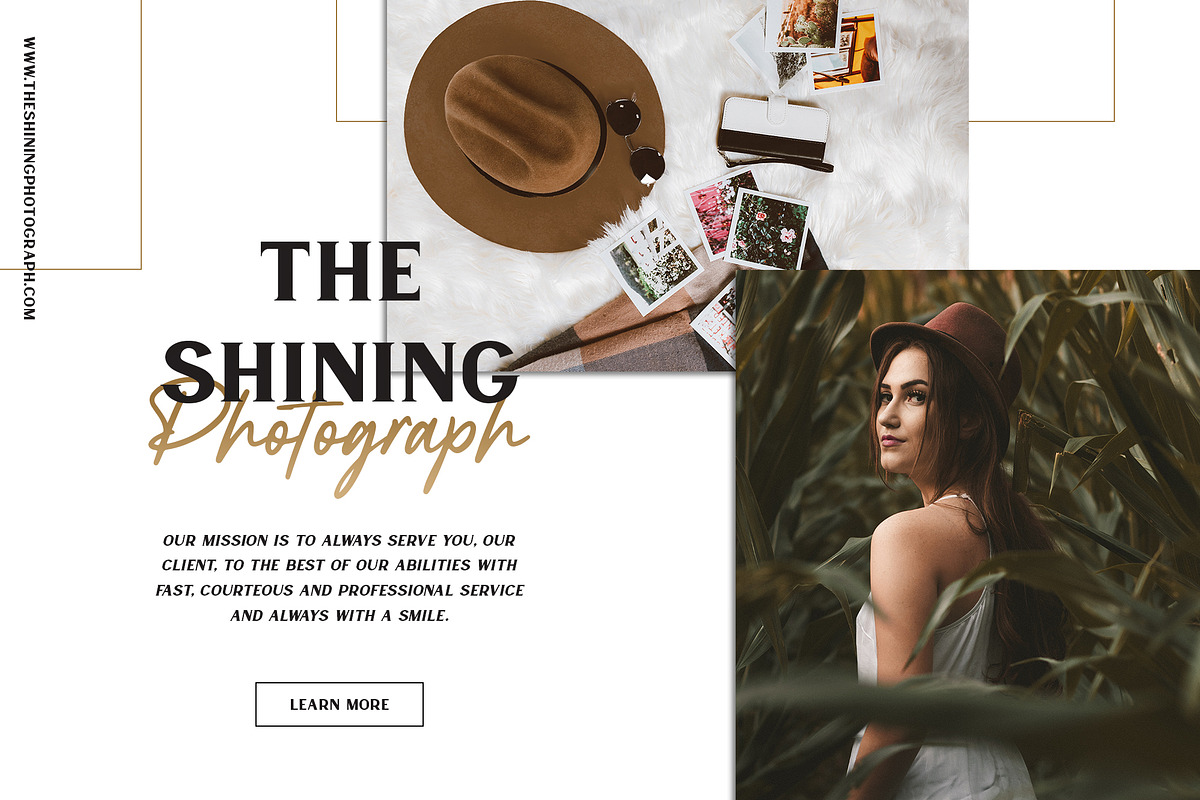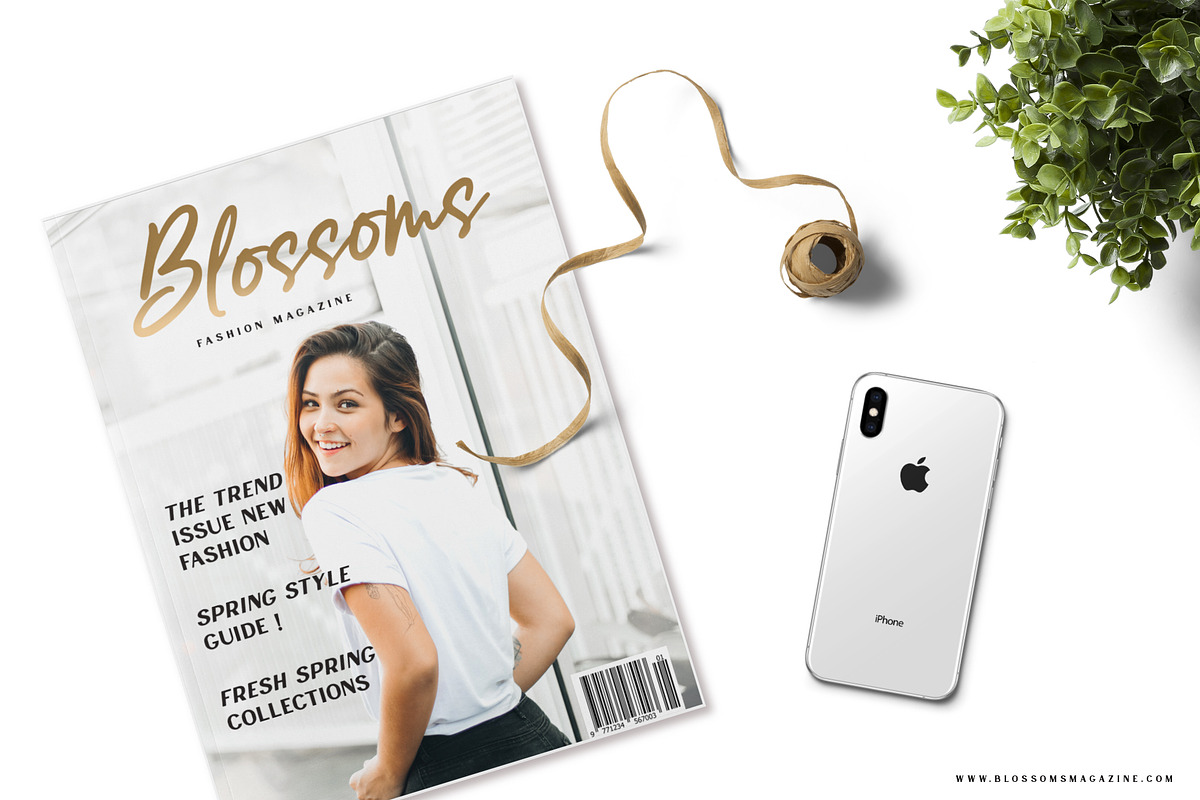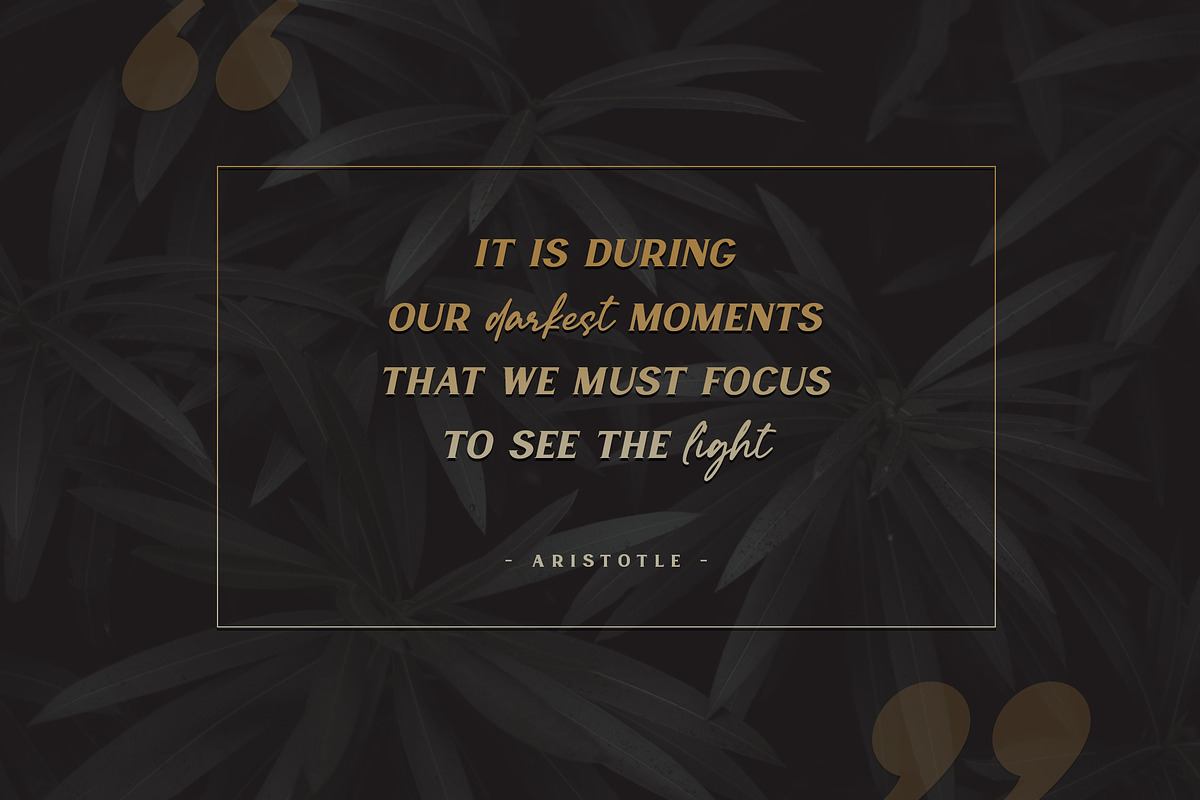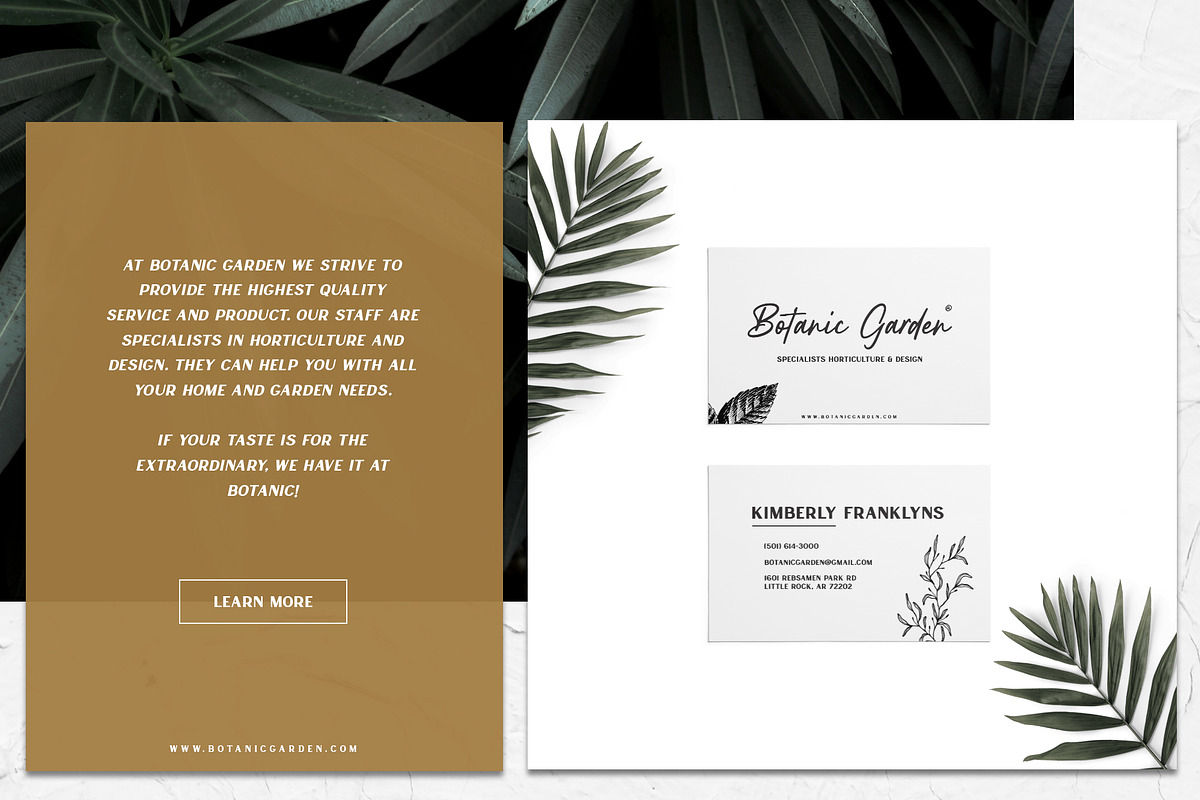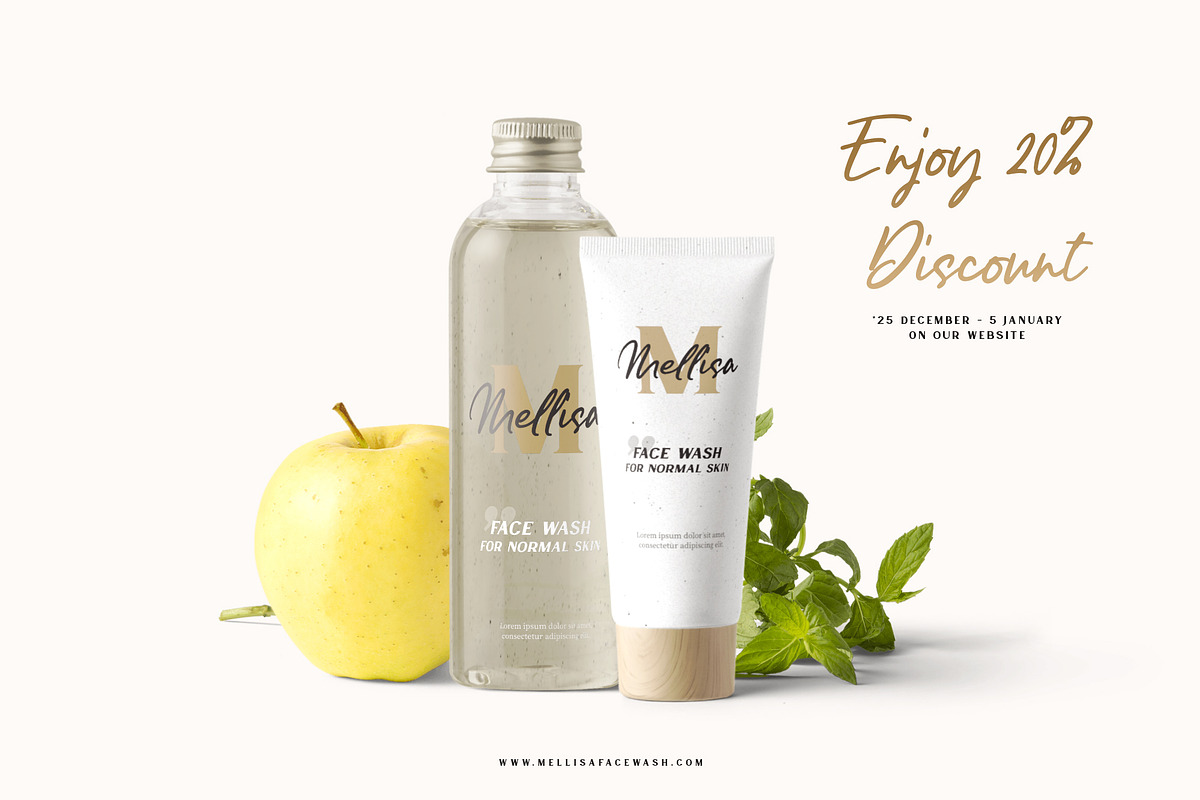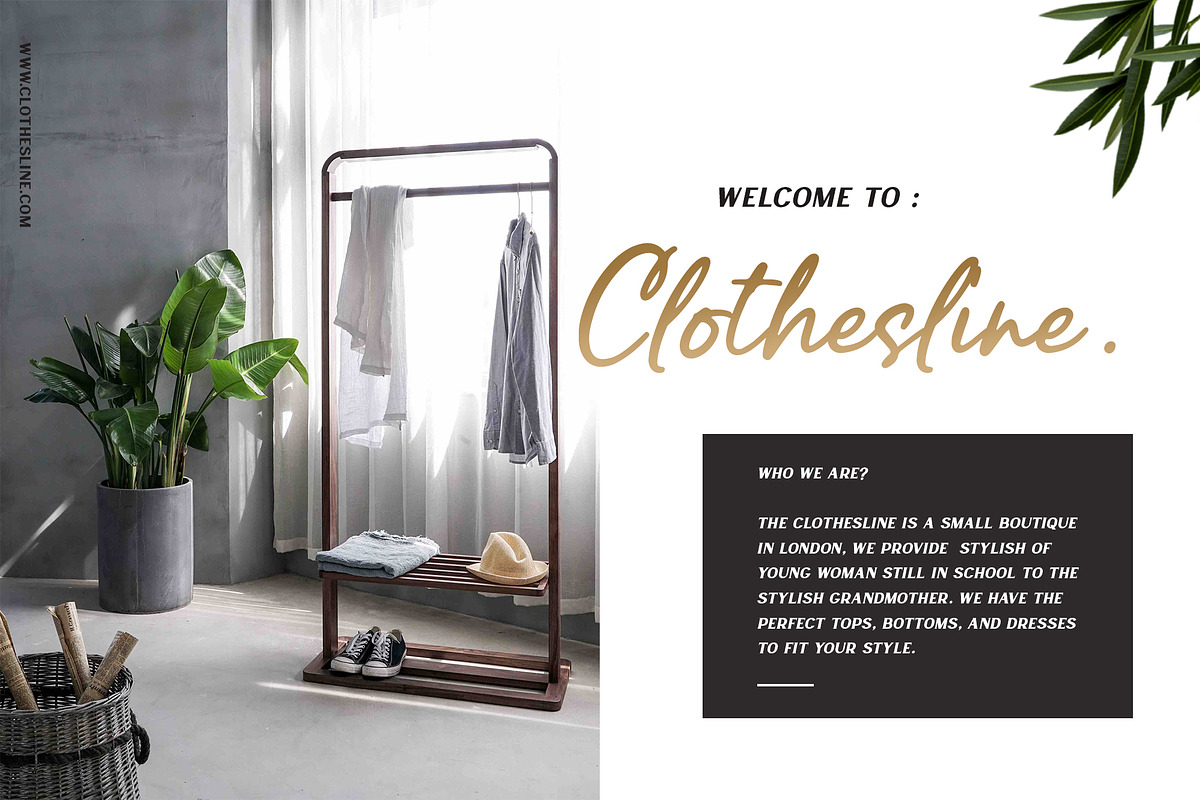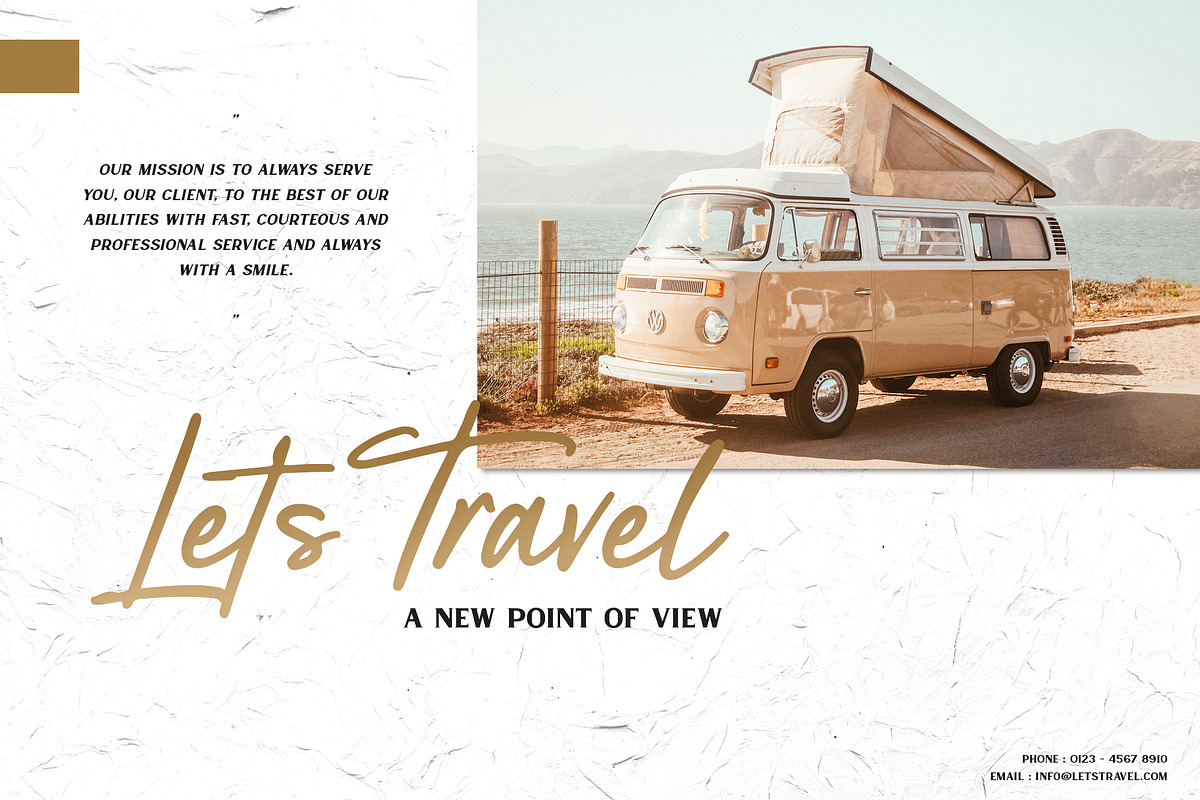
Lancaste - 3 Fonts
Introducing Lancaste - A artistic font collections that contains 6 fonts
Lancaste come with 2 sans fonts (regular & slant), 2 serif fonts (regular & slant) and 2 script style fonts (Regular & Alternates). Perfect combination fonts with 3 styles typeface (regular, alternates & slant) for applying your designs. This font matches applies in some designs such as the logotype, brand, magazine, website or blog headlines, packaging, branding, quotes, invitation cards, greeting cards, business cards, wedding and more custom design.
What does Lancaste Include?
Uppercase, lowercase, numeral, punctuation and symbol
Multilingual support: ŽžŠŒšŸÀÁÂÃÄÅÆÇÈÉÊËÌÍÎÏÐÑÒÓÔÕÖØÙÚÛÜÝßàáâãäåæçèéêëìíîïðñòóôõöøùúûüýÿ
3 typeface styles (Regular, Alt & Slant)
PUA Encoded Characters